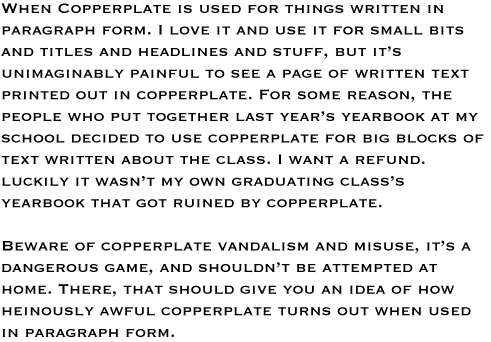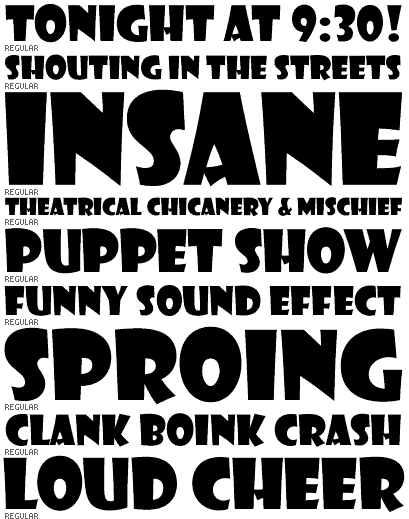
I dislike just about all the script fonts I come across, finding a good one is a rare find.
gasp!
I love using these actually. Decoratively only of course (and only as background imagery). Really HUGE, they become abstract curves of sexy goodness.
Really? Well, whatever floats your boat. I for one get no pleasure from such fonts. 😉 🙂
There are plenty of garbage fonts, but Helvetica is what came to mind first. 😉
Okay. You should really take another look at Helvetica. It's a fantastic typeface when used correctly. Most people don't bother to kern it and only use the default weights and sizes. And almost 50 years after it's original drawing, it still feels modern.
Personally, I hate brush script, arial is a blight on society, and my all-time most-hated is Addled.
I hate Arial, it's such a rip off... Helvetica is modern and easy to read... I'm having to invent a typeface and it's a curly one, unfortunately... >_<
death to Eurostile. Everytime is see it its like nails on a chalk board
doh, you won't like my website then...although I did change the hieght on it. 😛
At any size and in any colour
Oh dear god, yes.
You know around here virtually every shop selling wines and spirit has that exact font in bright red against a white background with the company name.
Who on earth would "graphically design" that?!
some one who took a 3 week desktop publishing class at the learning annex 😛
Compared to some 'designers' I've encountered, he'd be considered over-qualified. 🙄
Too right! You know things are headed downhill when Microsoft Publisher can be seen loading up, and the "wizard" is activated...🙄
Speaking about Comic Sans, what on earth was Apple thinking when they included Chalkboard ?!
And Apple Chancery is also Teh Ugly™
I have a list of my most hated fonts:
Papyrus—just not attractive
Culrz MT—seriously? it is on almost every sign i see here. I work for a magazine and everyone uses it for their logo in their ad.
Arial—Bland
Brush Script—Hiddeous
My favorite fonts right now are:
Helvetica Neue—(anthing between 25 and 45, but especially 27 condenced)
Berthold Akzidenz Grotesk—Love Their Extended Fonts
Futura—Almost worn out on it, but still a good font
GillSans
Goudy Old Style
FootLight MT
Didot
Bodoni
I have an old client whose brand I use to manage. I used Showcard Gothic for some of their elements.
But over the past year and a half, since I quit working with them they ahve absolutely destroyed what I have built. It now looks like its being managed by a 4 year old and an etch-a-sketch. http://www.rockbottomgolf.com/
(no offense intended towards 4 year olds with etch-a-sketches)
I hate Showcard Gothic.
Times New Roman ,
I dont really hate the font
I just use it way too much and have no choice in using it...
I dislike Arial Black...too heavy...
You took the words right out of my mouth (right off my screen?) regarding Times New Roman.
Not sure that I have an official™ "most hated" font, but fonts like the following I see no real purpose for:
Those are relatively useful in the print design world. They come up more than you'd imagine...watch out for them in books/magazines/posters whatever, and you'll notice that decorative shapes show up a lot. They're also used huge a lot and as background type stuff. The reason they make a font of it is so that you can have tons of different shapes on hand at any time, and they're vectorized so you can make them huge.
I personally dislike: